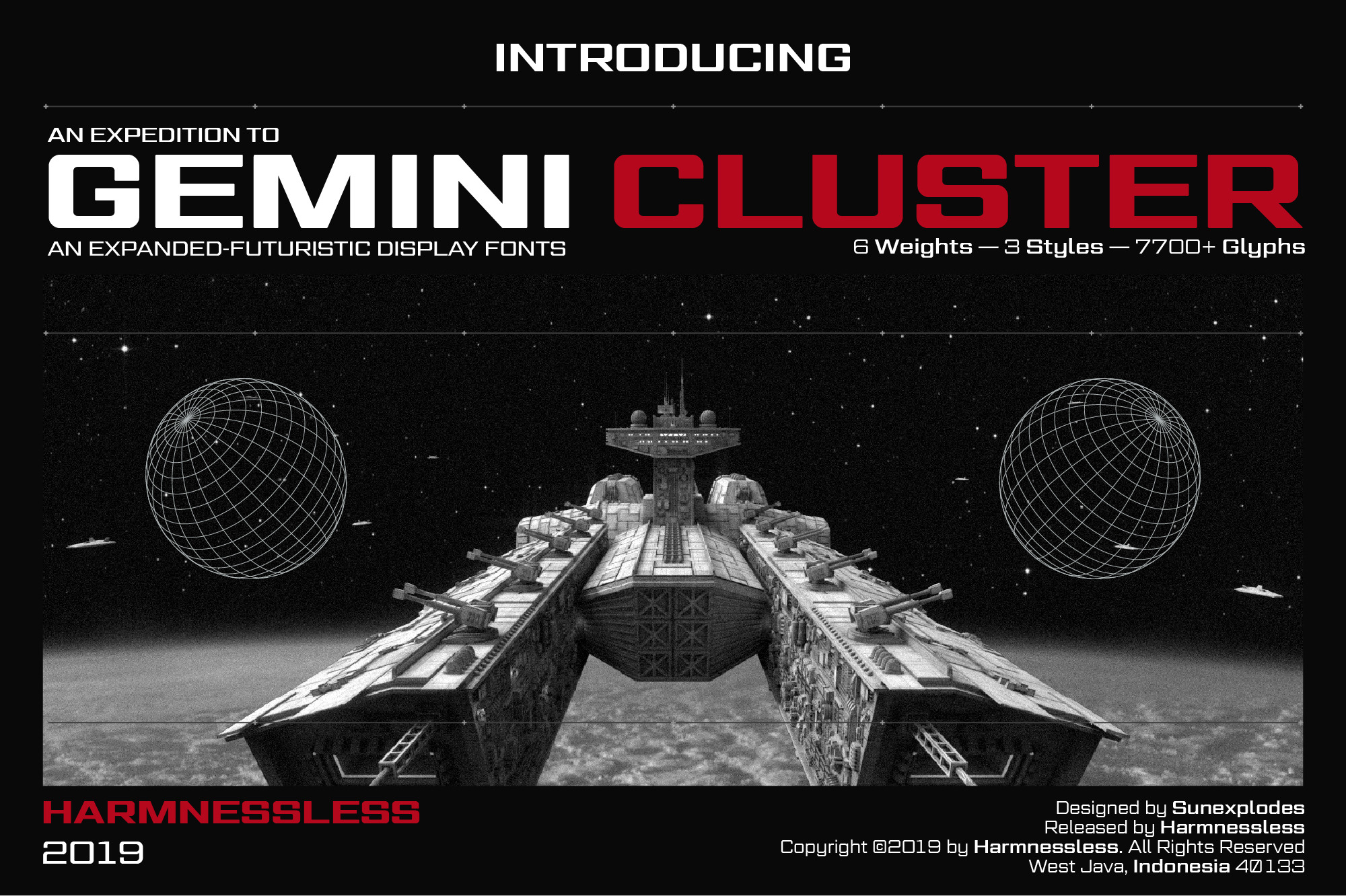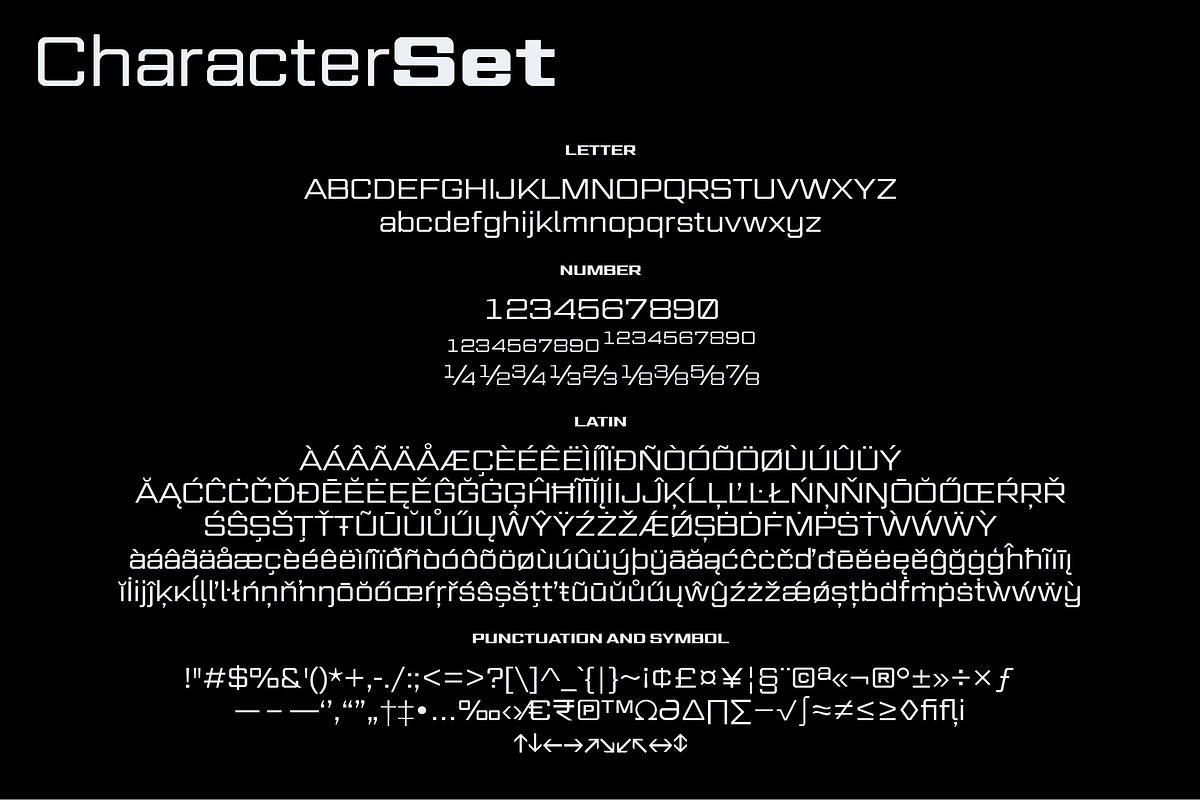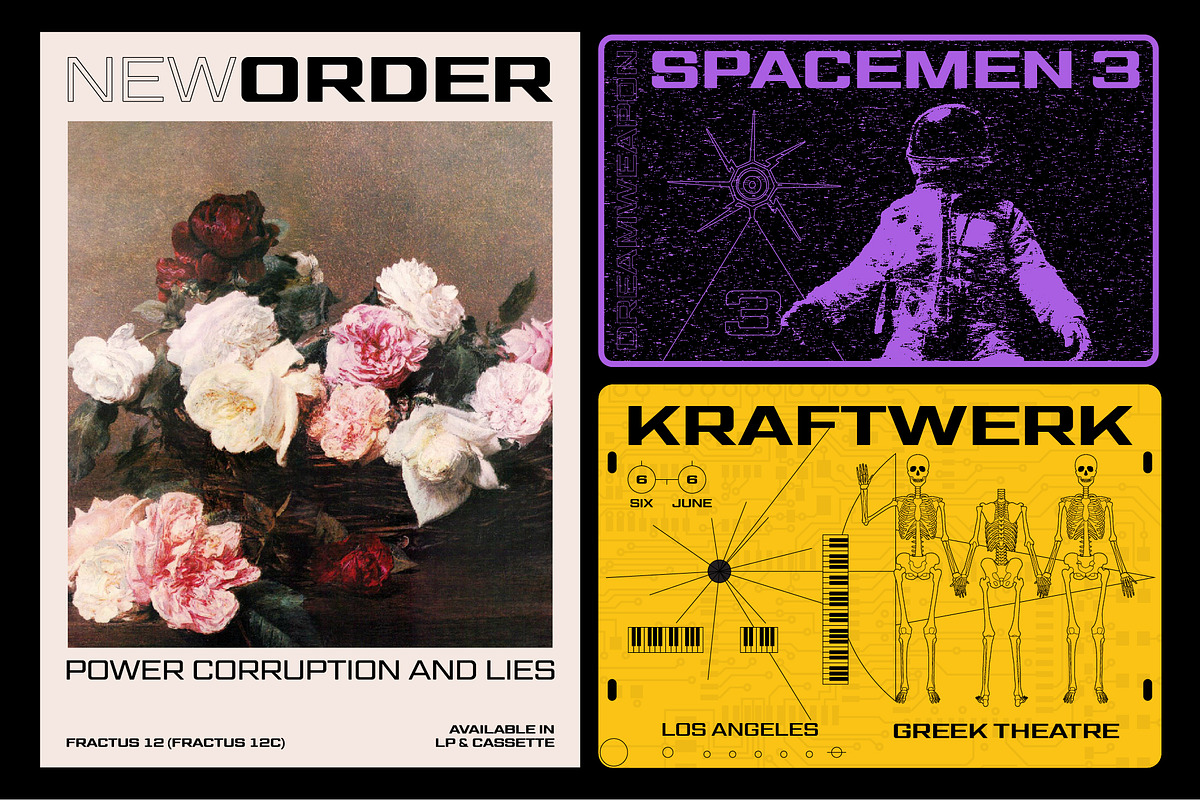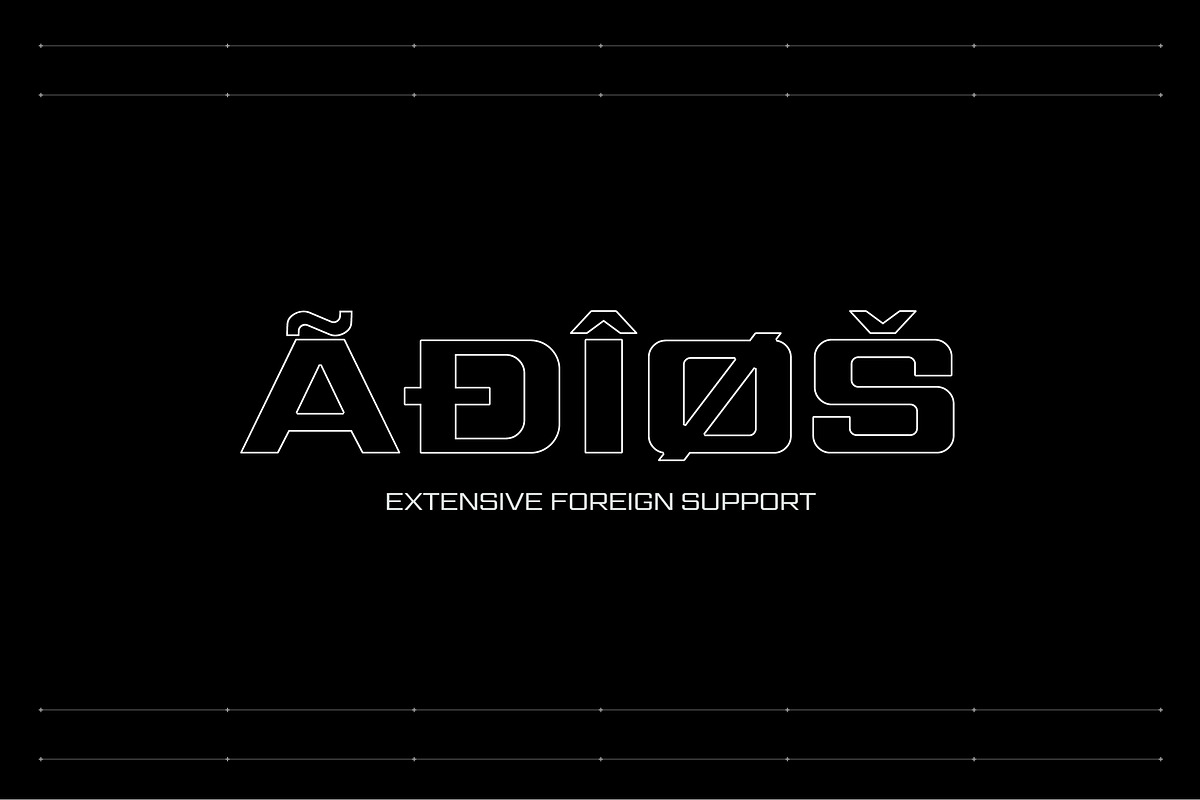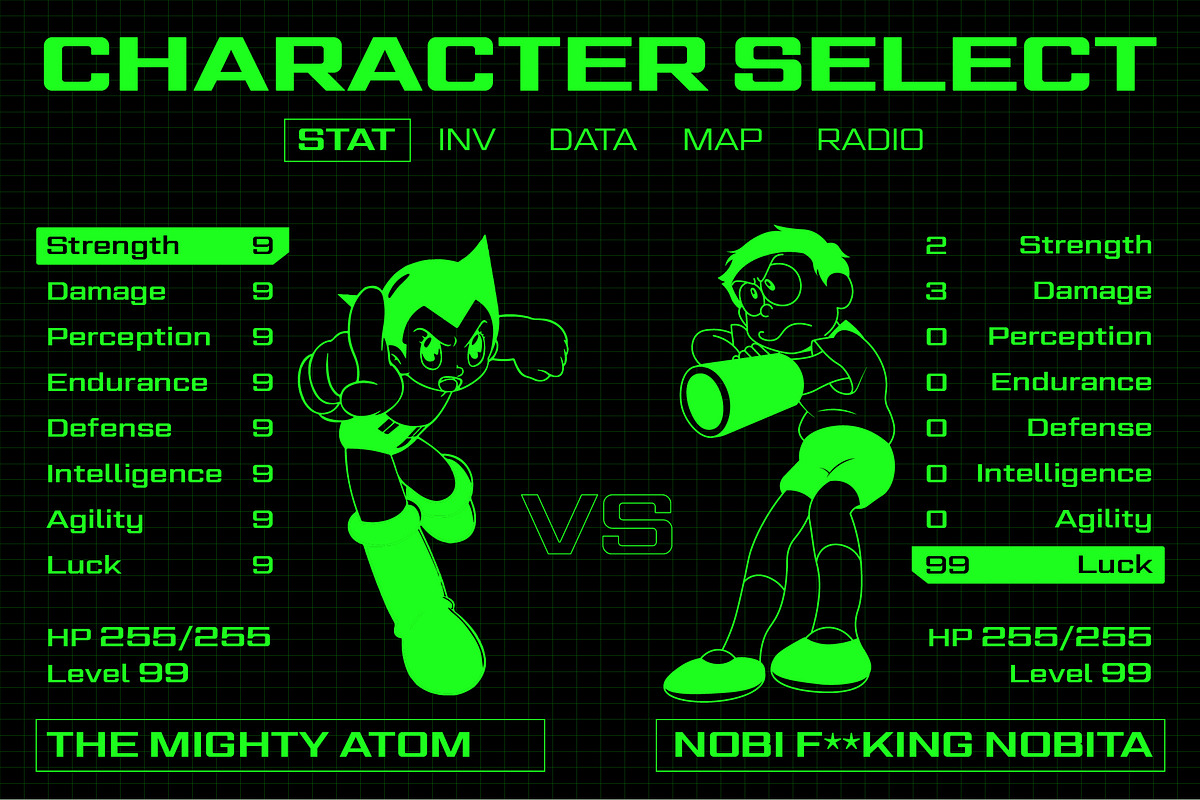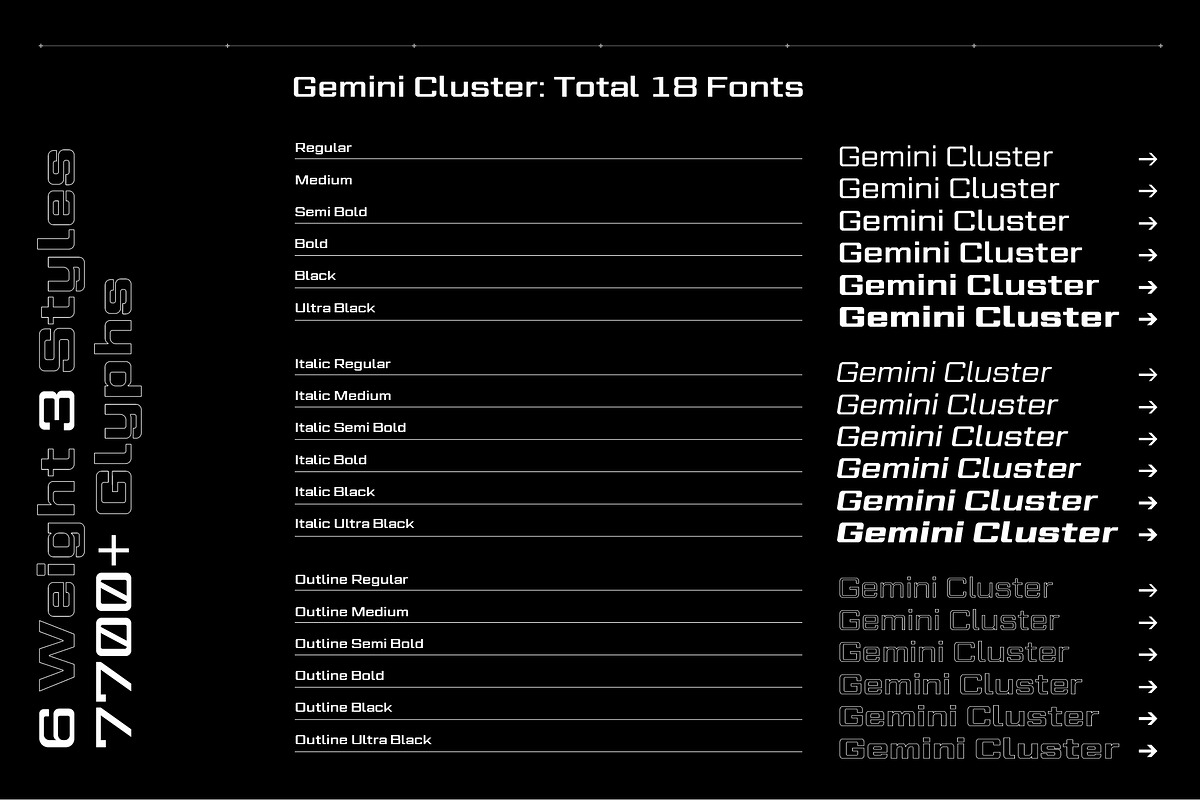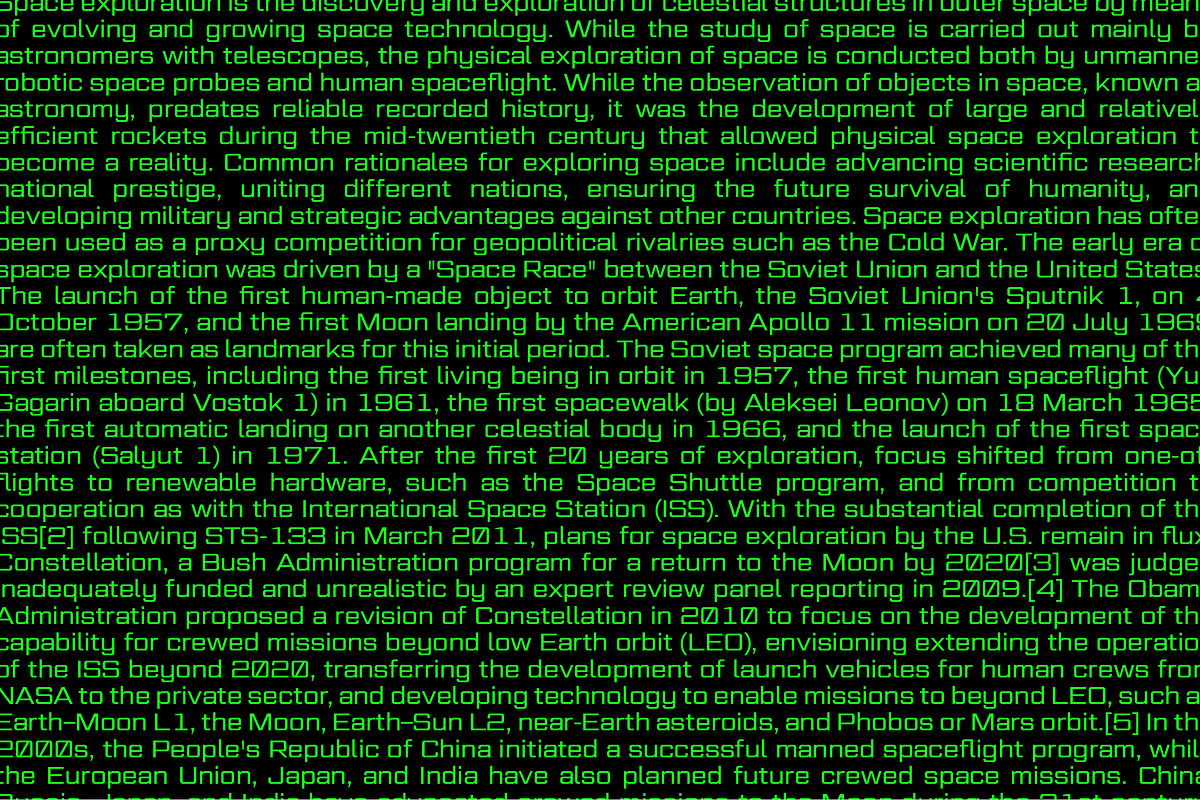
Gemini Cluster - Expanded Fonts
Gemini Cluster is a expanded-futuristic font family, avaliable in 6 weights and 3 styles. Gemini Cluster is inspired by experimental-futuristic graphic design poster movement and retro games. The fonts has a wide weight and bold, designed in a modern sci-fi style.
Gemini Cluster includes uppercase and lowercase in multilingual letters, numbers, symbols and punctuations.
Gemini Cluster is perfect for movie titles, game titles, posters, flyer, UI, and so on. So, let's playing around with Gemini Cluster!